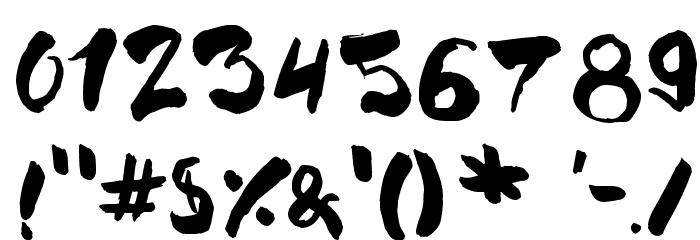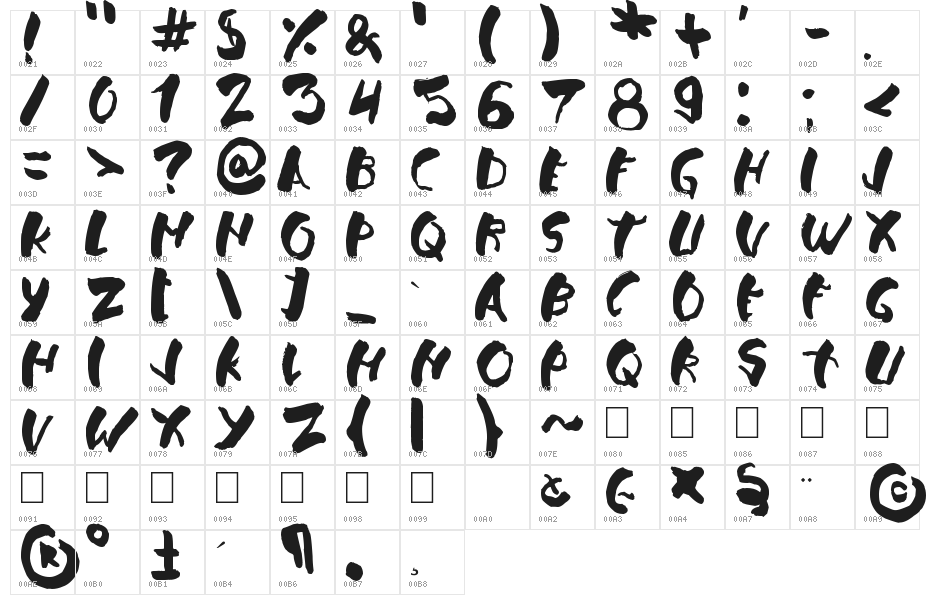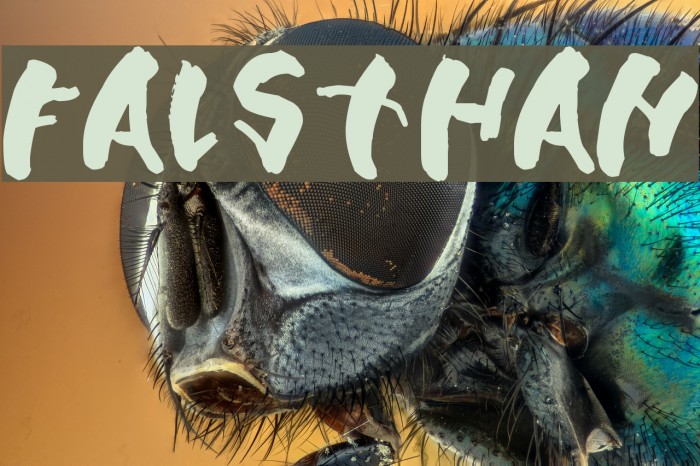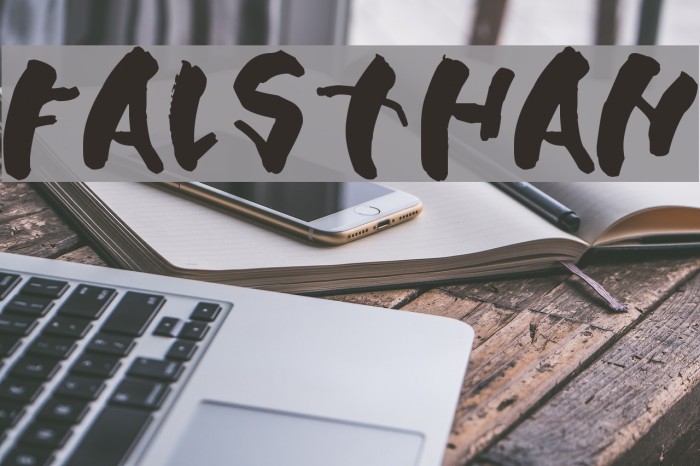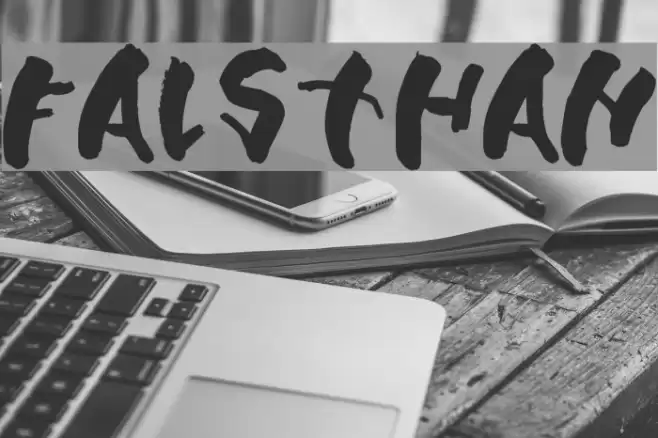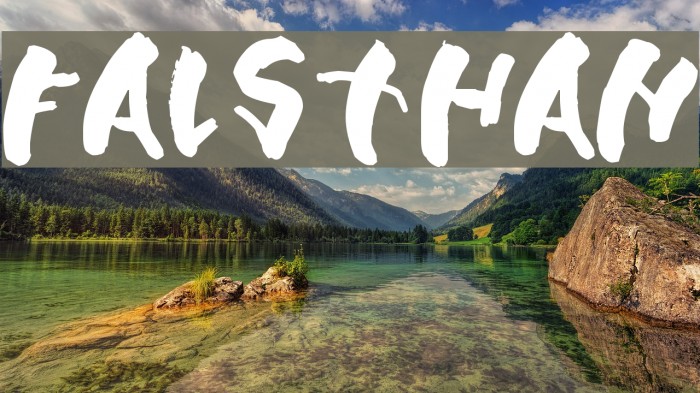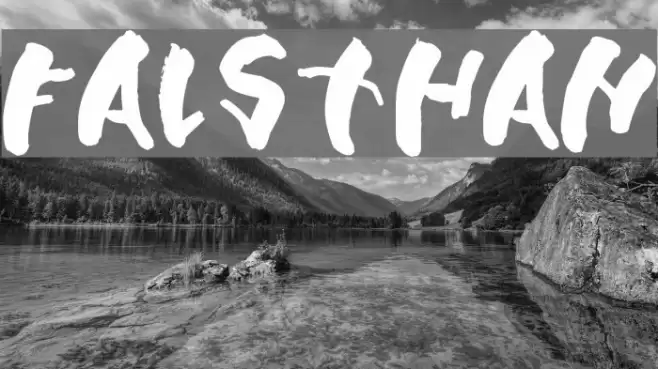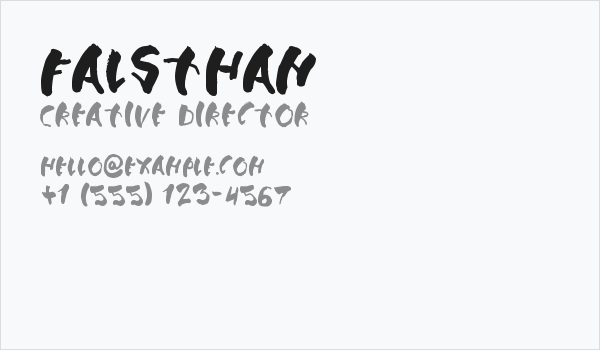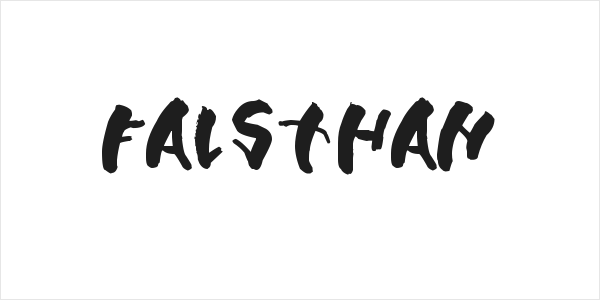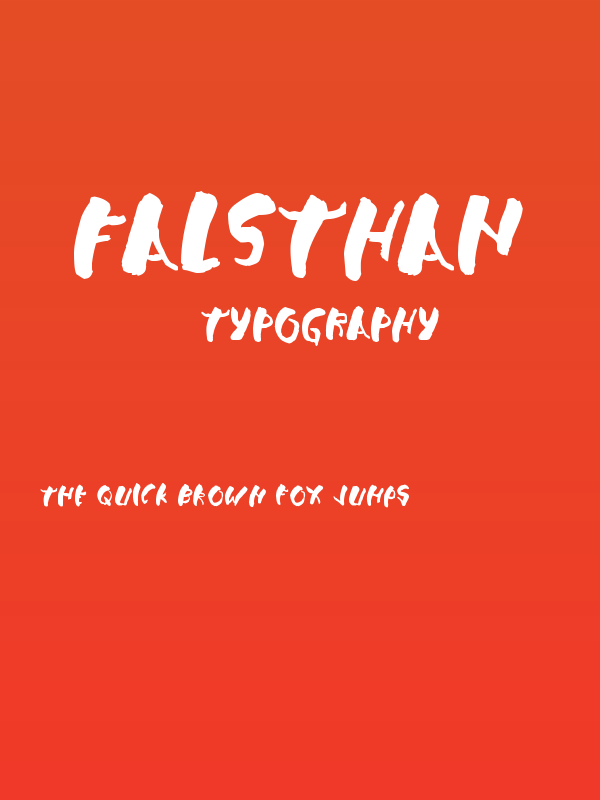
Falsthan Font
Falsthan Description
This font features a bold, expressive style with a brush-like texture, giving it a dynamic and energetic appearance. The characters are slightly irregular, adding a handcrafted feel that is both artistic and informal. The uppercase and lowercase letters maintain a consistent style, with thick strokes and rounded edges. The numbers and special characters follow the same aesthetic, ensuring a cohesive look across all elements. This font's unique character makes it stand out, ideal for projects that require a personal touch.
| Proposed Projects | Ideal for branding, posters, artistic projects, and any design that benefits from a personal, handcrafted touch. |